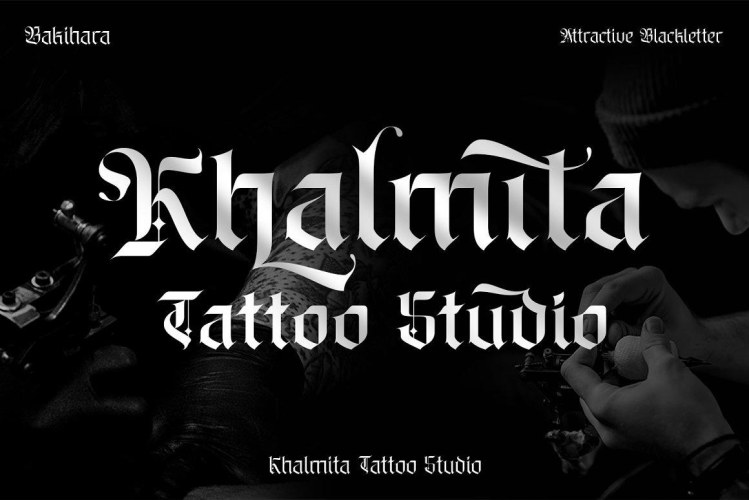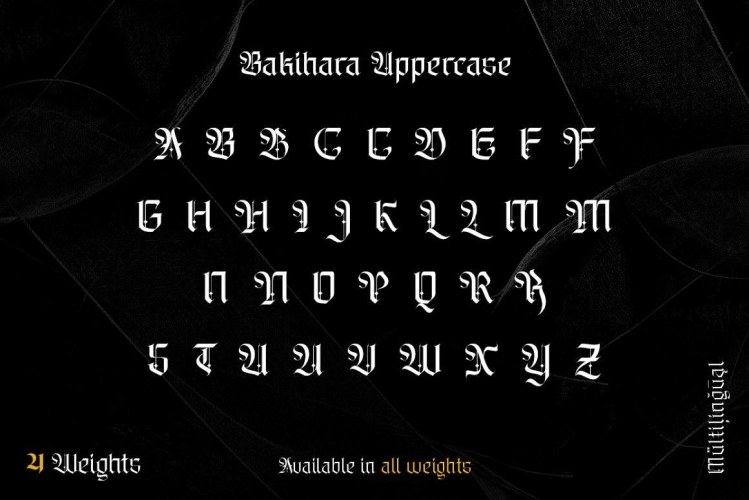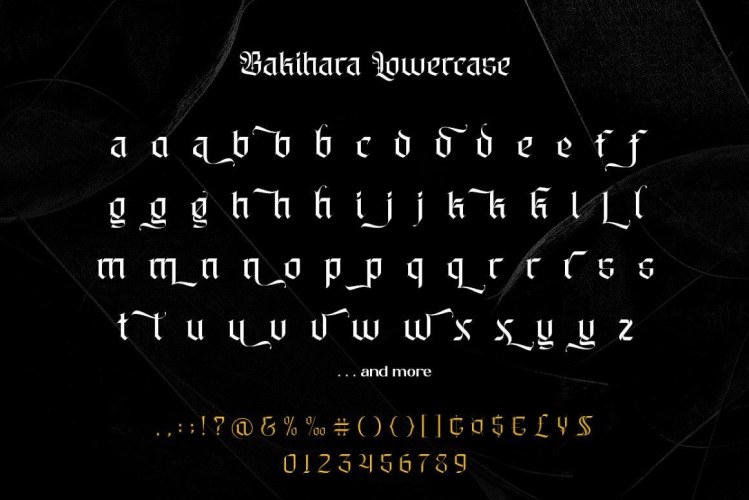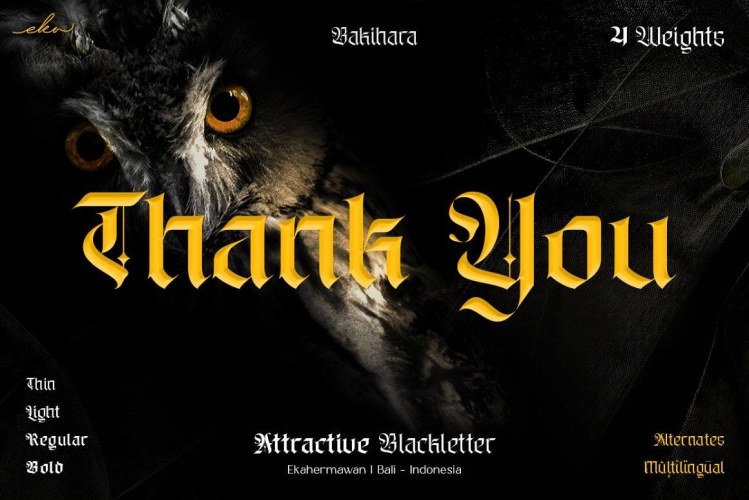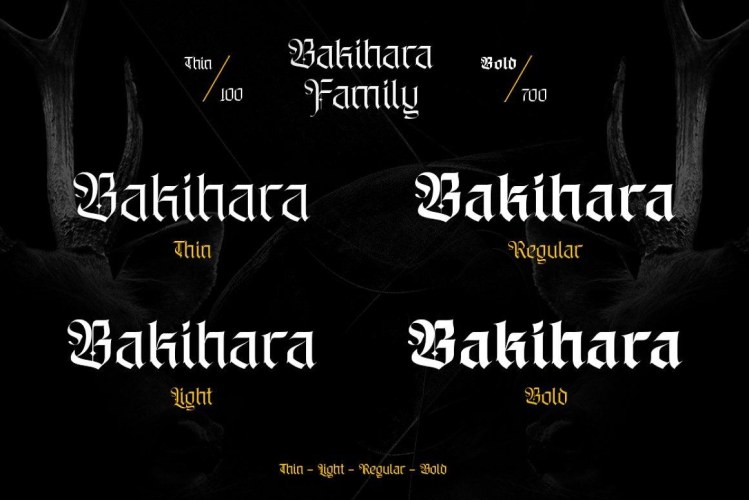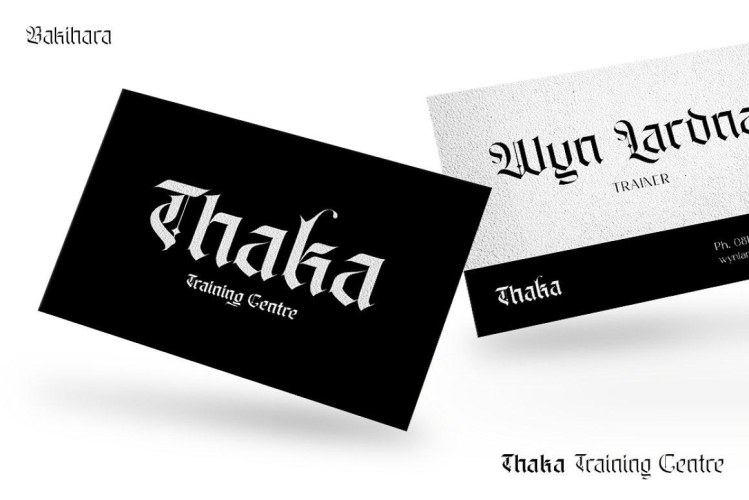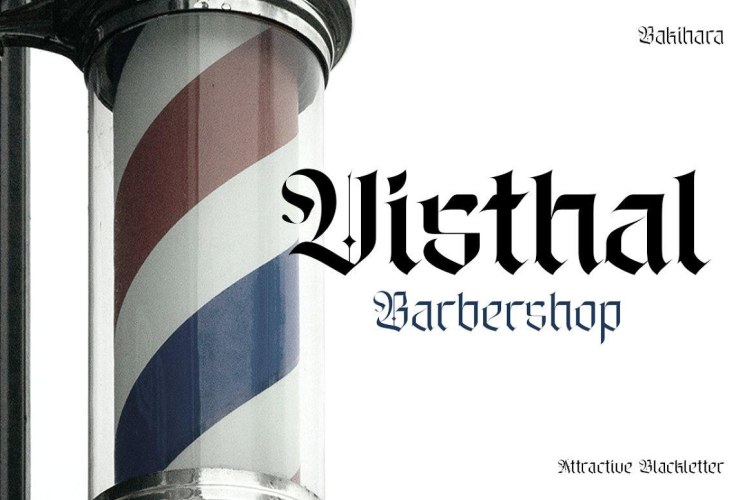
Bakihara – Blackletter Font Family
Introducing Bakihara is an attractive blackletter family with a full set of uppercase and lowercase characters, alternates characters, ligatures characters, multilingual support, currency figures, numerals and punctuation. Bakihara comes with 4 weights from Thin to Bold that will support your creativity in creating perfect designs for various projects such as logo design, branding, posters, magazines, labels, merchandise, invitations, advertisements, tattoos, clothing, music events, and many more project with a Gothic theme.
Bakihara – Blackletter Font Family is a Font Family font that brings a professional and versatile look to your projects. Introducing Bakihara is an attractive blackletter family with a full set of uppercase and lowercase characters, alternates characters, ligatures characters, multilingual support, currency figures, numerals and punctuatio.